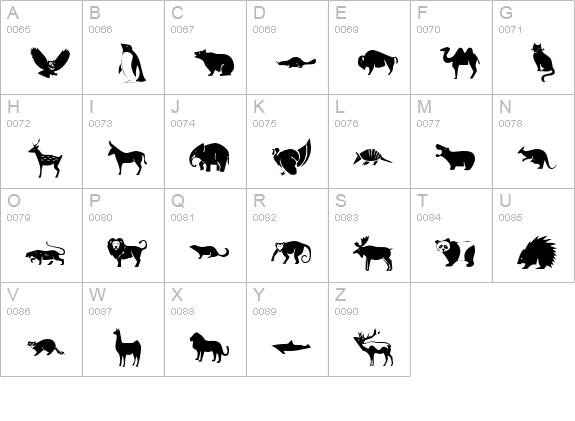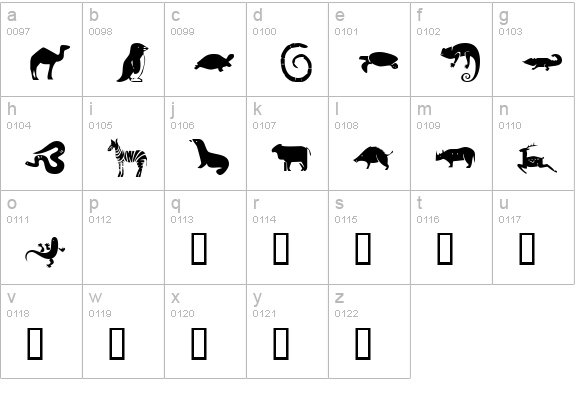
KR Menagerie Font Details
KR Menagerie font is a whimsical and charming typeface that will add a touch of playfulness to your designs. With its unique hand-drawn style and quirky letterforms, this font is perfect for projects that require a touch of creativity and imagination. Whether you're designing greeting cards, invitations, or posters, KR Menagerie font will bring a fun and lively element to your work. Best of all, KR Menagerie font is available for free download at FontsMarket.com. This means you can easily access and use this delightful font in your projects without any cost. So why wait? Add a touch of whimsy to your designs with KR Menagerie font today!